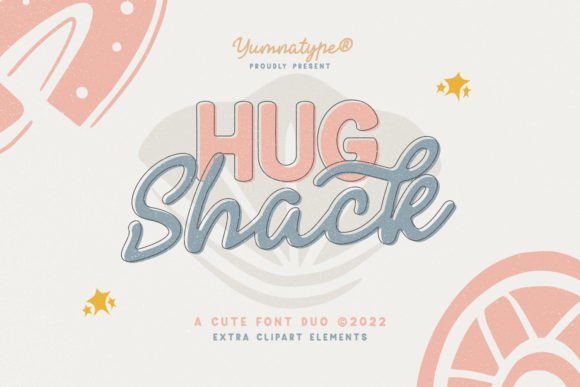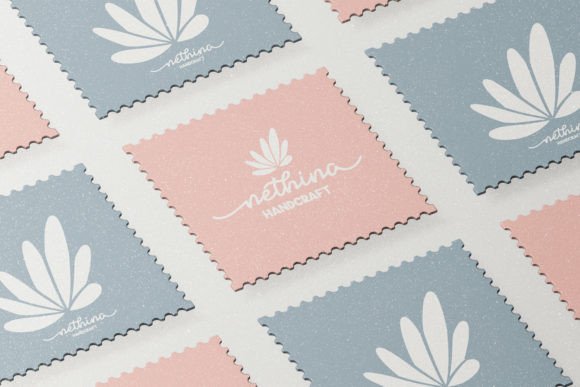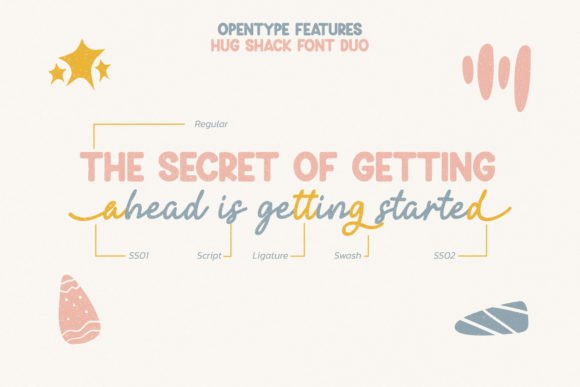
Unlock the Power of Emotions in Design
Have you ever been brainstorming a new design project, and the perfect font just pops into your mind, capturing the essence of your vision? That’s exactly what happened to us when we discovered the Hug Shack Font duo. This beautiful and easy-to-style font combination is a game-changer for designers looking to elevate their designs with a dash of joy and cuteness.
The Hug Shack Font is more than just a pretty face – it’s a powerful tool designed to help you express your creativity and connect with your audience on a deeper level. With its harmonious font duo, you can mix and match to create gorgeous results that leave a lasting impression. Plus, with PUA encoding, you’ll have access to all the glyphs and swashes you need to take your design to the next level.
Hug Shack Font Key Features
- Unique Characteristics: Hand-drawn, cursive, and emotive style with a mix of modern and vintage elements
Hug Shack Font Review
As a designer, I’ve had the chance to play around with the Hug Shack Font, and I must say it’s a unique addition to any typography collection. Here’s what I think:
- Playful and whimsical vibe: The font’s friendly and approachable nature makes it perfect for projects that need a lighthearted touch.
- Good for titles and headings: Hug Shack’s bold and chunky design makes it well-suited for titles, headings, and other large text elements.
- Fun for branding: If you’re looking for a font that can help establish a brand identity, Hug Shack is definitely worth considering.
- May not be ideal for large blocks of text: The font’s playful nature can make it difficult to read in large quantities, so it’s best used sparingly.
- Limited character set: The font’s character set is not extensive, which may limit its use in certain projects.
Overall, I think the Hug Shack Font is a great addition to any designer’s toolkit, but it’s best used in moderation. Its playful and whimsical nature makes it perfect for projects that need a lighthearted touch, but it may not be the best choice for large blocks of text or projects that require a more formal tone.